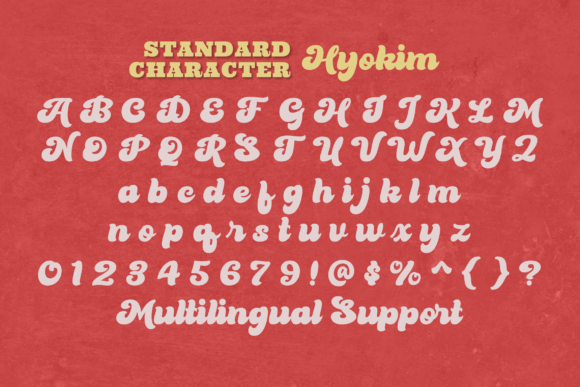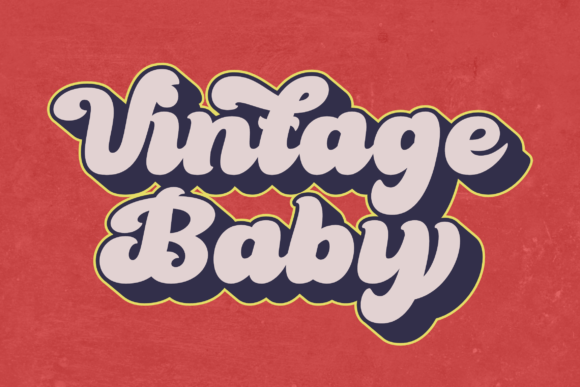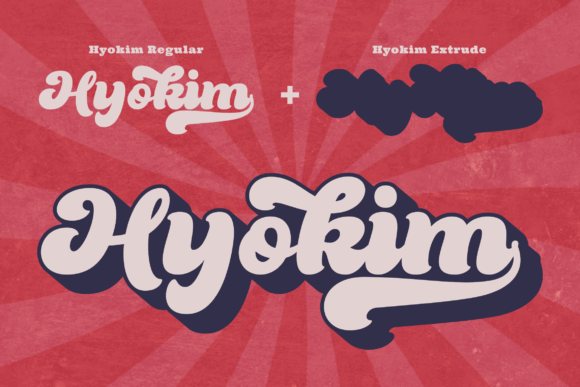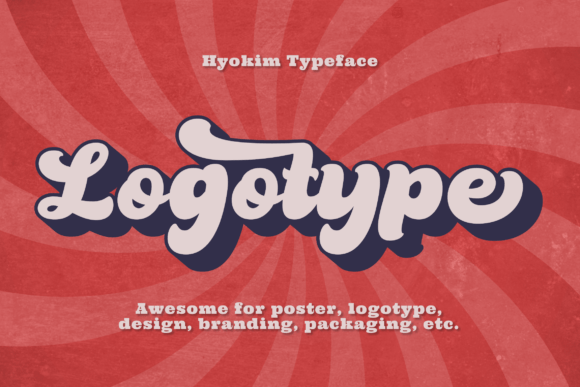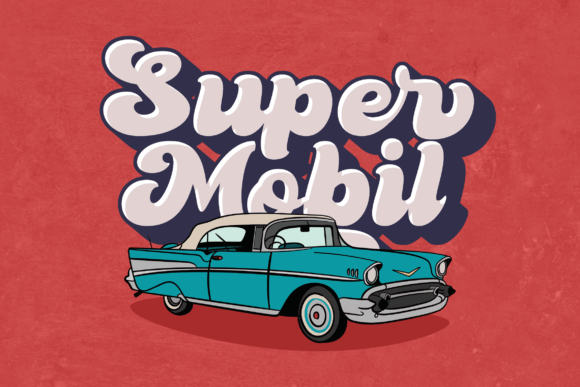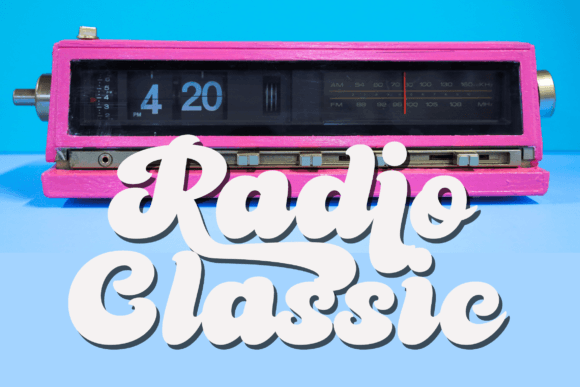
Introduction to Hyokim Font
Have you ever stumbled upon the perfect design element, and your entire creative project suddenly comes together? For designers, those ‘aha’ moments are the best, and that’s exactly what the Hyokim Font is designed to bring to your table. This charming, retro-style script display font is a game-changer for any vintage-inspired project.
Whether you’re working on a poster, sticker, apparel, or social media post, the Hyokim Font is ready to take your designs to the next level. Its high-quality design and PUA encoding make it easy to access all the glyphs and swashes, giving you endless possibilities for customization. As a valuable design resource, this font is perfect for designers looking for a unique and eye-catching element to elevate their work.
Key Features of Hyokim Font
- Unique design resource with a transparent background for versatile use
- Supports a wide range of languages, making it suitable for international projects
- Perfect for graphic designers, digital artists, and anyone looking for a modern font design
Honest Review: Hyokim Font
As a designer, I’m always on the lookout for unique and high-quality design resources to elevate my creative projects. Recently, I came across the Hyokim Font, and I must say, it’s a game-changer.
Here’s what I love about the Hyokim Font: ✨
- Its high-quality design is immediately noticeable, making it perfect for professional and creative projects.
- The transparent background allows for seamless integration into any design, giving you full control over the composition.
However, I do have some concerns: ⚠️
- The font family is relatively small, so you may not have as many customization options as you’d like.
- The Hyokim Font may not be suitable for large-scale or complex designs due to its minimalist design aesthetic.
Overall, I’m impressed with the Hyokim Font’s design and versatility. While it may have some limitations, it’s a valuable addition to any designer’s toolkit, especially for smaller creative projects. If you’re looking for a high-quality, easy-to-use font, the Hyokim Font is definitely worth checking out.
How to Use Hyokim Font
The Hyokim Font is a high-quality design resource that offers a unique and creative way to enhance your projects. With its transparent background and sleek design, it’s perfect for any creative project.
Tips for Getting the Most Out of Hyokim Font
To get the most out of the Hyokim Font, use it in conjunction with other design elements, such as images and graphics, to create a visually appealing and cohesive design.
The Hyokim Font is commonly used in various design projects, including:
- Brand identity and logos
- Business cards and stationery